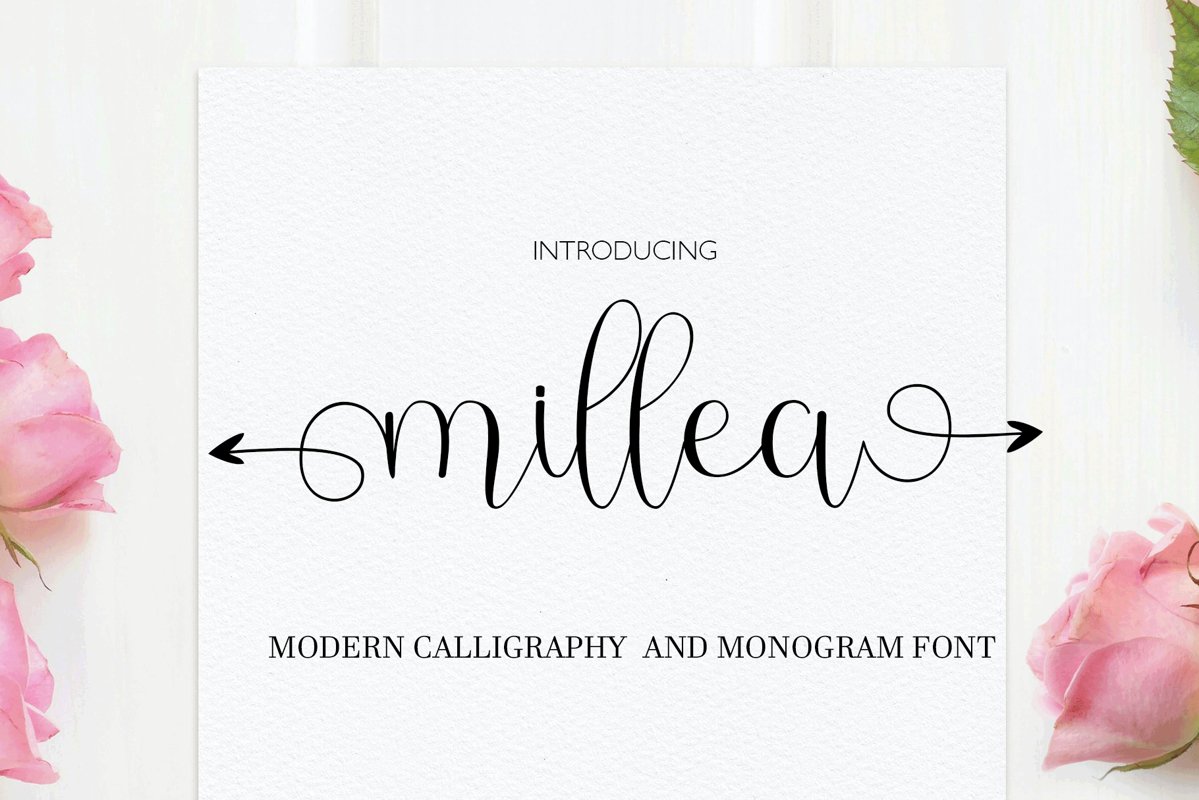
Millea
Millea Mono Gram
Millea script
Millea is a sweet and soft handwritten font!
This font is perfect for quotes, clothing designs, websites, branding, children's designs, blogs, logos, invitations, and more!